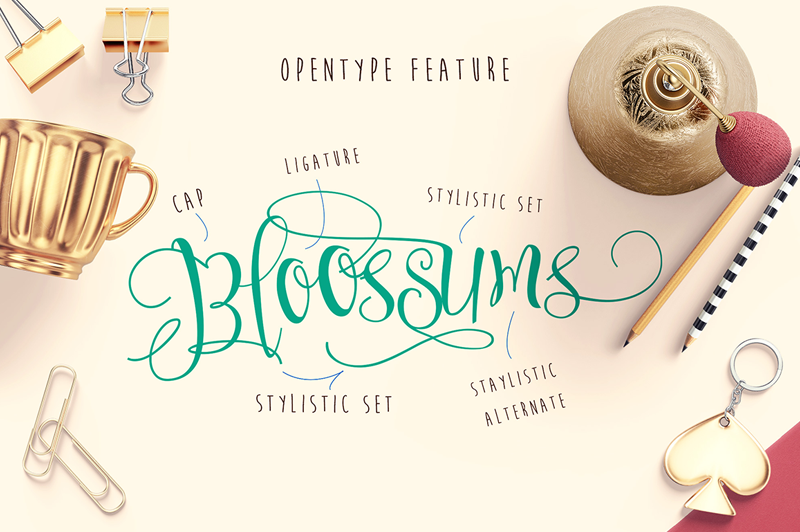
Font name: | Sweetline |
Author: | Dirtyline Studio |
Note by Dirtyline Studio | |
Sweetline Typeface, is a calligraphy wavy, modern and clasik, perfect for your next design, such as logos, printed quotes, invitations, cards, product packaging, headers and anything else about your imagination. Full Version : http://crtv.mk/u7Ot |